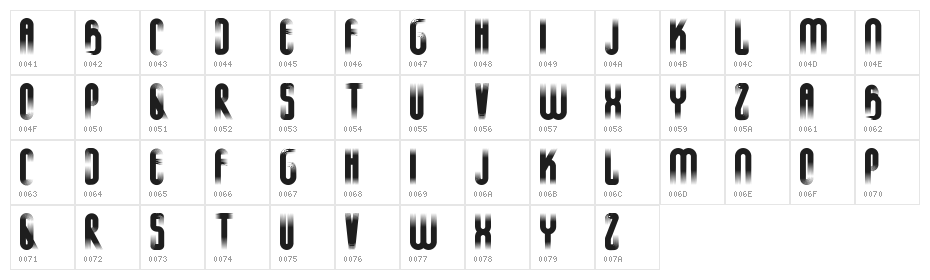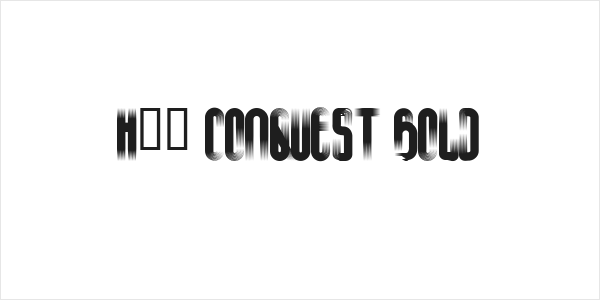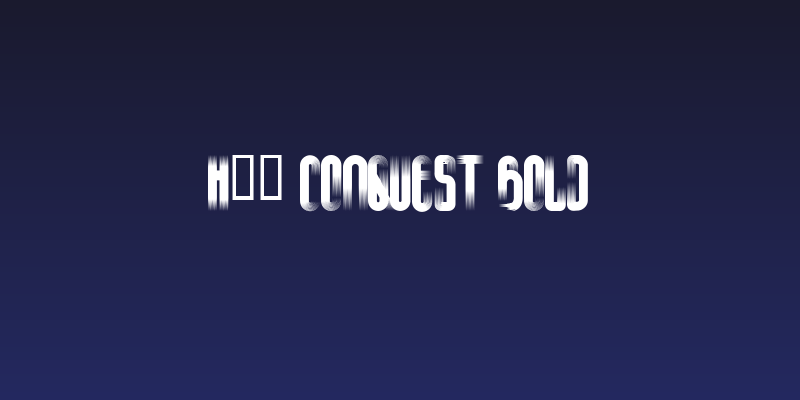
H74 Conquest Bold Font
H74 Conquest Bold Description
This font features a bold and striking design with a unique gradient effect that gives each character a dynamic and modern appearance. The uppercase letters are tall and narrow, with a distinct geometric style that adds a sense of movement and energy. The gradient effect transitions from solid black at the top to a lighter shade towards the bottom, creating a visually captivating look. This font is ideal for projects that require a strong visual impact and a contemporary feel.
| Proposed Projects | Ideal for posters, album covers, branding, and any project needing a bold statement. |